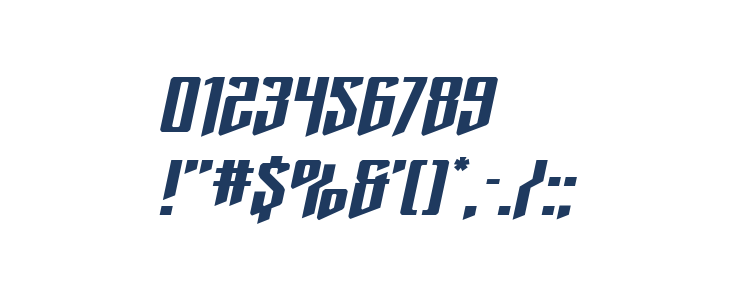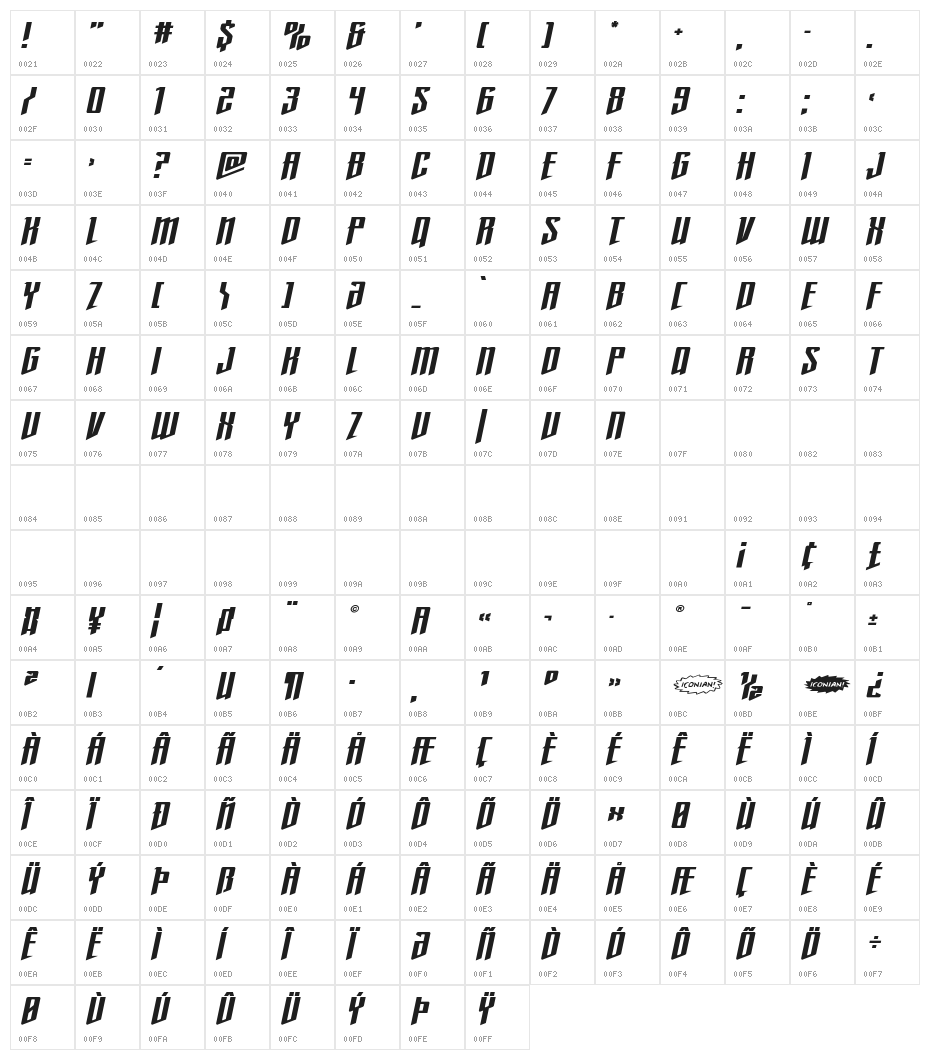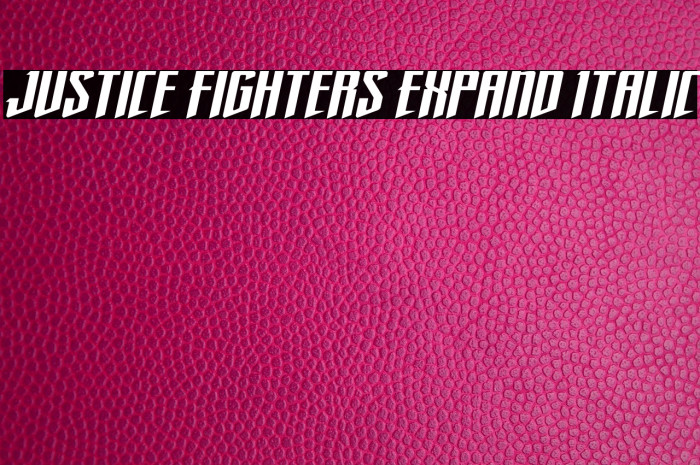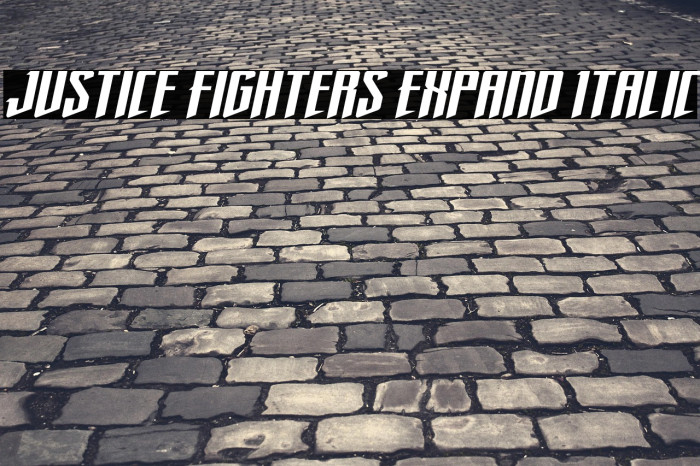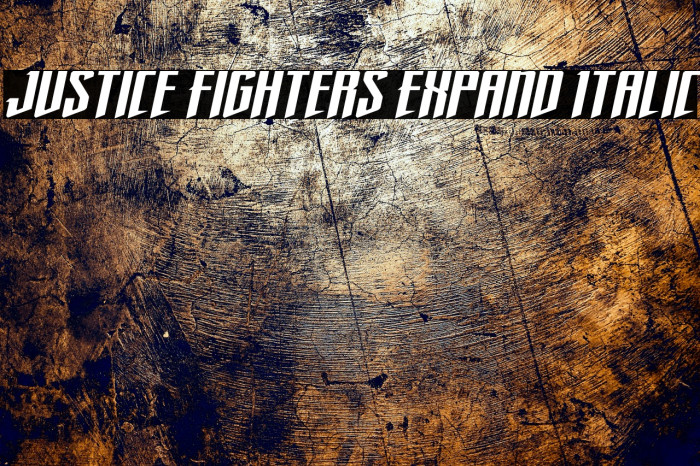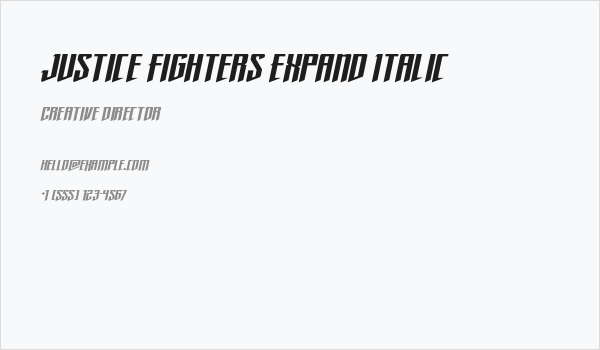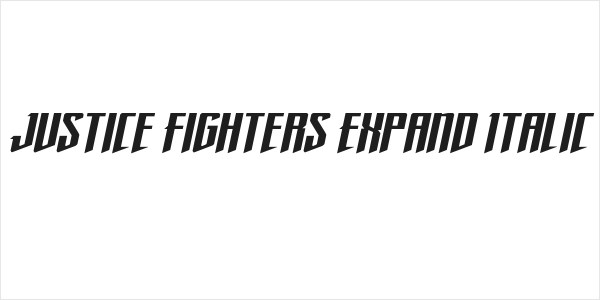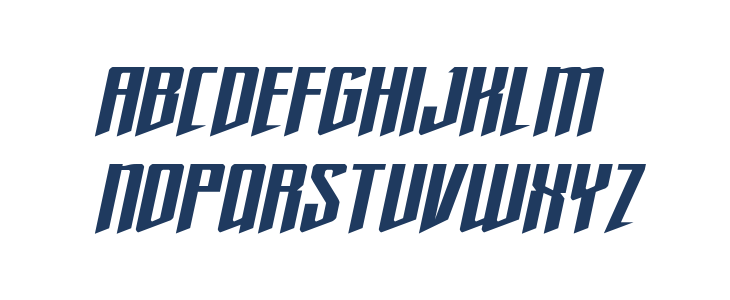
Justice Fighters Expand Italic Font
Justice Fighters Expand Italic Description
This font features a bold and dynamic design with a strong italic slant, giving it a sense of movement and urgency. The characters are sharply angled, with a futuristic and aggressive appearance. The strokes are thick and consistent, providing a solid and impactful presence. The expanded width of the letters enhances its boldness, making it ideal for attention-grabbing headlines or titles. The font includes a full set of uppercase letters, numbers, and a variety of special characters, ensuring versatility in design applications.
Proposed ProjectsIdeal for sports branding, action movie posters, video game titles, and dynamic advertising campaigns.